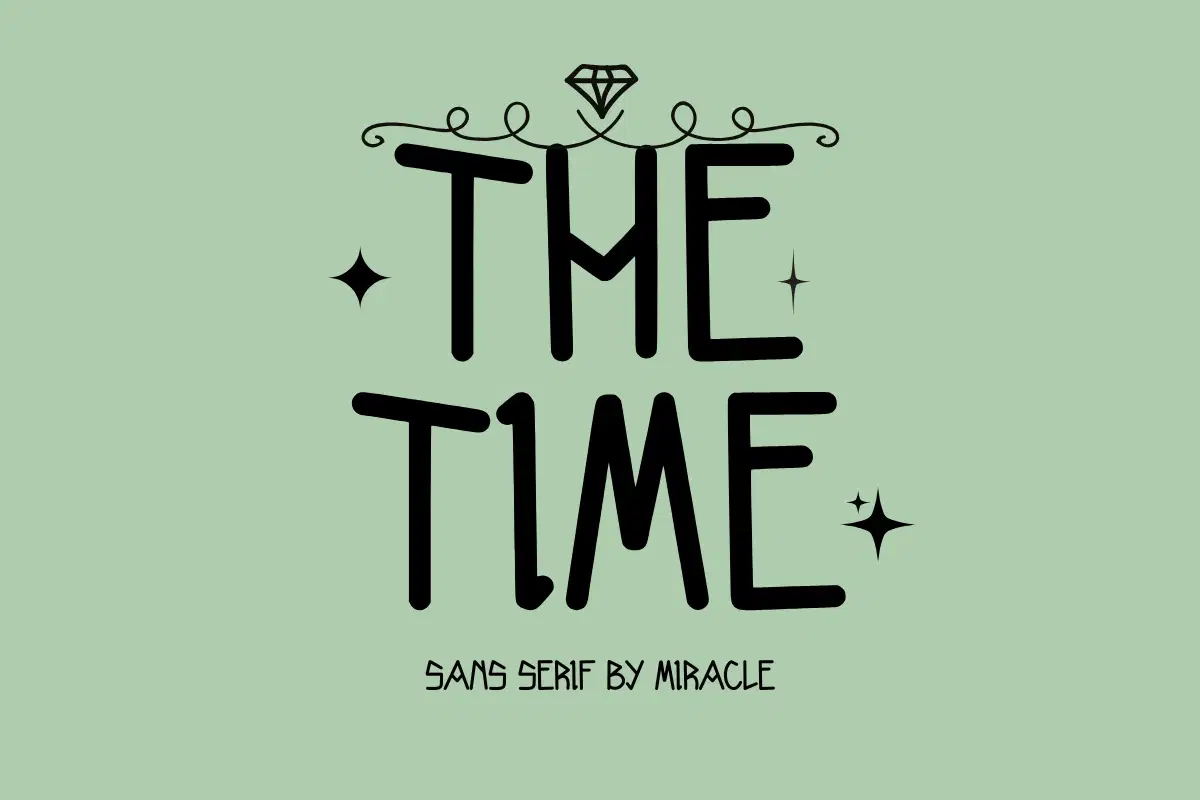
Step into a world of elegance with The Time, a captivating display sans serif font by Miracle. Characterized by its tall, slender letterforms and distinctive geometric accents, this font is designed to command attention while maintaining a sophisticated and modern aesthetic. Its unique terminals and clean structure give it a "timeless" quality that works perfectly for high-end creative projects.
The Time is an ideal choice for designers looking to create a strong visual identity. Whether you are working on a luxury brand, a mysterious book cover, or a stylish editorial layout, this font adds a touch of class and intrigue to every character.